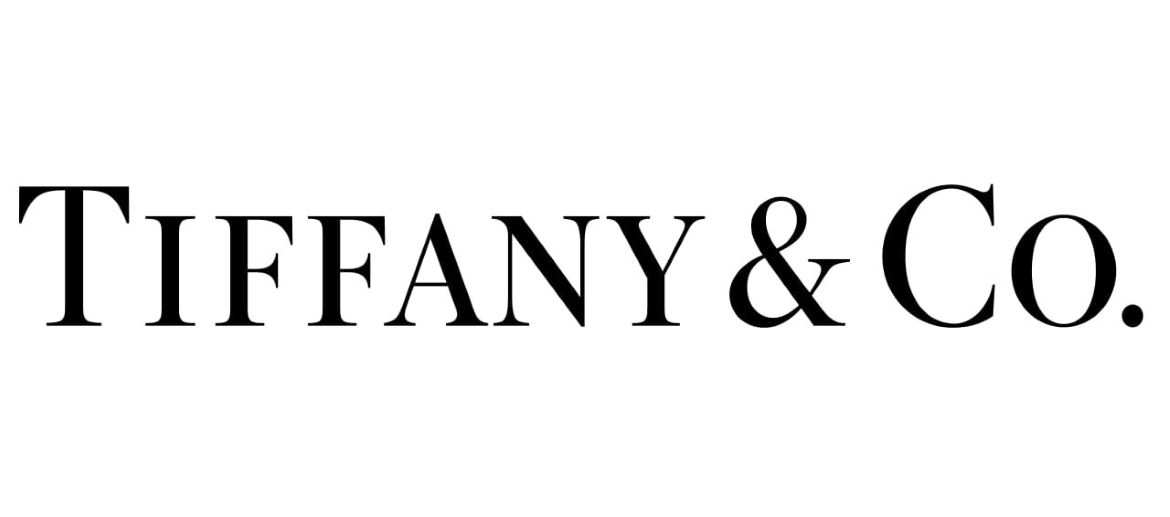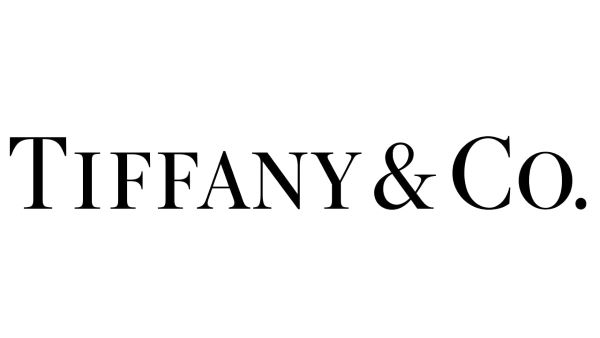
Tiffany Font
What Font is Tiffany & Co?
The Tiffany & Co font is most likely Old Baskerville TS-Regular, a refined and elegant serif typeface that aligns beautifully with the brand’s timeless luxury aesthetic. This commercial font features classic letterforms, high contrast strokes, and an air of sophistication—qualities that mirror the heritage and prestige of Tiffany & Co. While Old Baskerville TS-Regular is a premium typeface, we also found a free alternative font that captures a similar graceful, high-end look suitable for personal projects inspired by the brand.
About Tiffany & Co
Tiffany & Co, founded in 1837 by Charles Lewis Tiffany and John B. Young in New York City, is one of the world’s most iconic luxury jewelry houses. Known for its exceptional craftsmanship, sparkling diamonds, and the instantly recognizable Tiffany Blue®, the brand has become synonymous with elegance and romance. Over the decades, Tiffany & Co has shaped jewelry trends, influenced design culture, and maintained a strong presence in film and fashion. Its typography—clean, classic, and understated—perfectly complements the brand’s legacy of sophistication and timeless beauty.